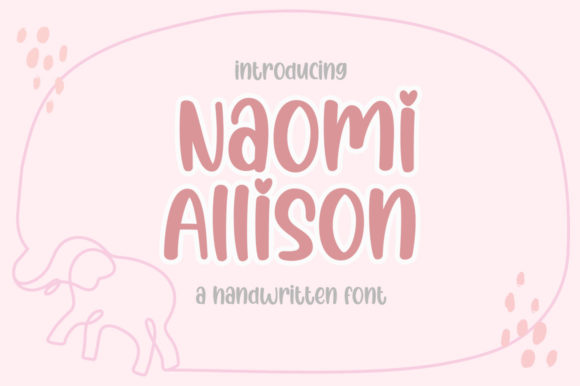
**Introducing Naomi Allison: The Handwritten Font That Will Captivate Your Audience**
Unleash the power of personality with Naomi Allison, a captivating display font that dances across your designs with an irresistible handwritten charm. Every curve and stroke exudes a touch of playful elegance, making it the perfect choice for adding a personal touch to your creations.
Whether you're crafting logos that leave a lasting impression, headlines that demand attention, or t-shirts that speak volumes, Naomi Allison has the versatility to elevate your designs to new heights. Its effortless flow adds a touch of whimsy to letterheads, signage, and labels, while its bold presence commands attention in posters and badges.
**Immerse Yourself in a World of Creativity**
With Naomi Allison at your fingertips, the possibilities are endless. Explore a universe of design opportunities where your imagination takes center stage. Create eye-catching news articles that captivate readers and design posters that become the talk of the town. Your creations will exude a captivating allure that draws people in and leaves them spellbound.
**Craft a Personal Connection**
Naomi Allison is more than just a font; it's a medium through which you can express your unique style. Its handwritten nature evokes a sense of intimacy, creating an instant connection with your audience. Whether you're designing invitations for a special occasion or creating social media posts that resonate, Naomi Allison will amplify your message with a touch of genuine charm.
**Experience the Simplicity of Elegance**
Naomi Allison's design philosophy is rooted in simplicity, allowing the beauty of its handwritten strokes to shine through. Its effortless elegance adds a touch of sophistication to any project, without overwhelming the message you want to convey. With Naomi Allison, you'll discover the power of minimalism and the impact of understated beauty.
**Make a Lasting Impression**
In a world saturated with digital noise, it's the authentic and personal touches that truly stand out. Naomi Allison empowers you to create designs that cut through the clutter and leave an unforgettable mark. Its ability to convey emotions and create connections makes it the perfect choice for businesses, artists, and individuals alike.
**Embrace the Versatility**
From delicate branding to bold headlines, Naomi Allison adapts effortlessly to a myriad of design styles. Its versatility knows no bounds, allowing you to experiment with different looks and create designs that reflect your unique vision. Whether you're a seasoned professional or just starting your design journey, Naomi Allison will become an indispensable tool in your creative arsenal.
**Unleash Your Creativity**
With Naomi Allison, the possibilities are limitless. Its handwritten charm and versatility empower you to create designs that resonate with your audience and leave a lasting impression. Embrace the beauty of simplicity, connect with your audience on a personal level, and let your creativity soar.